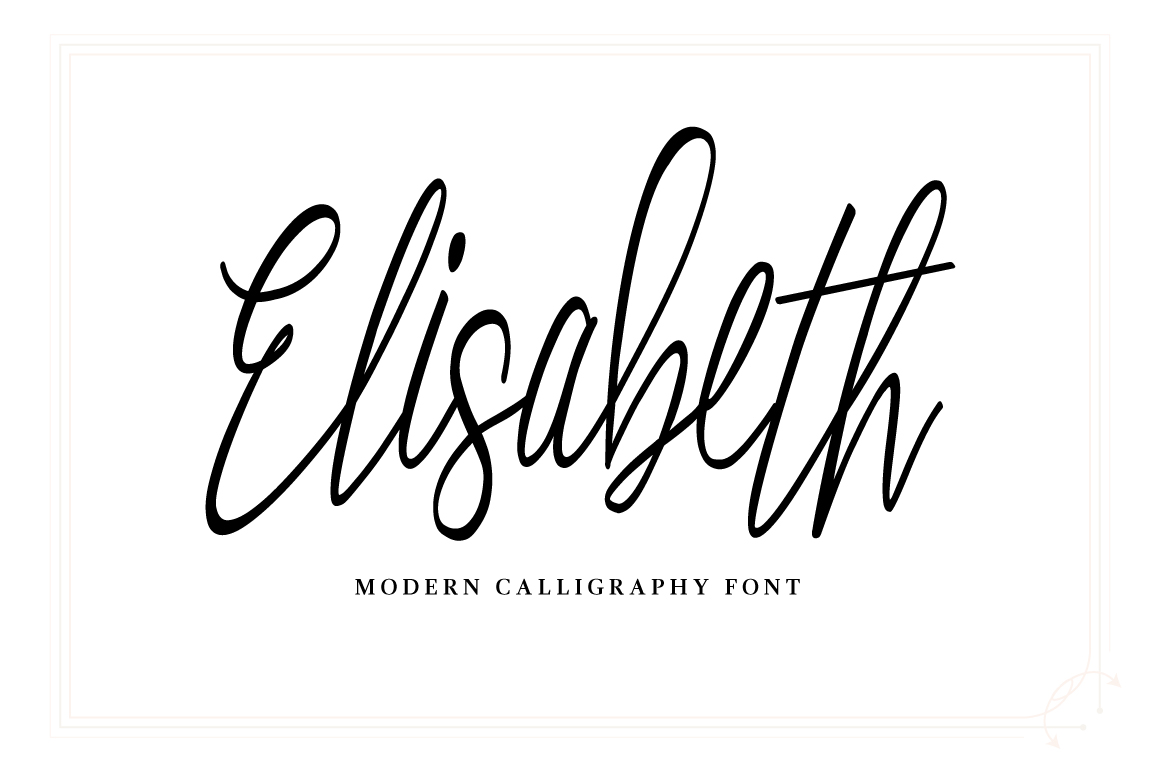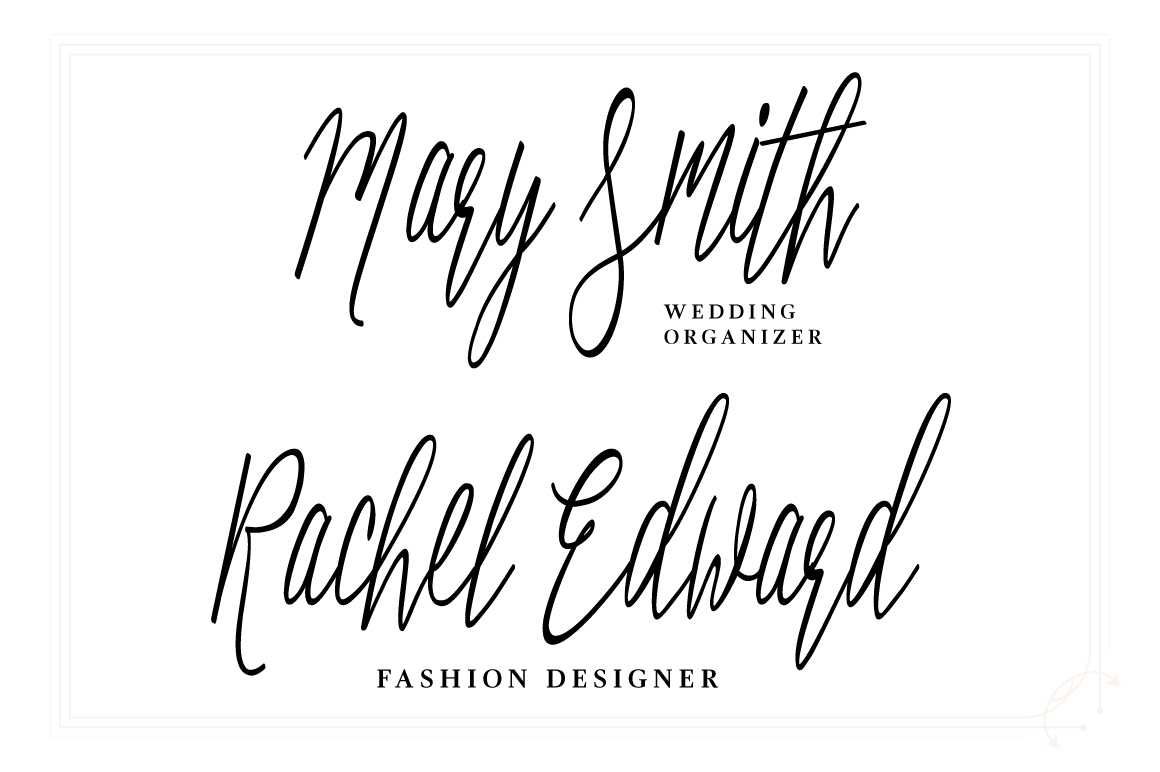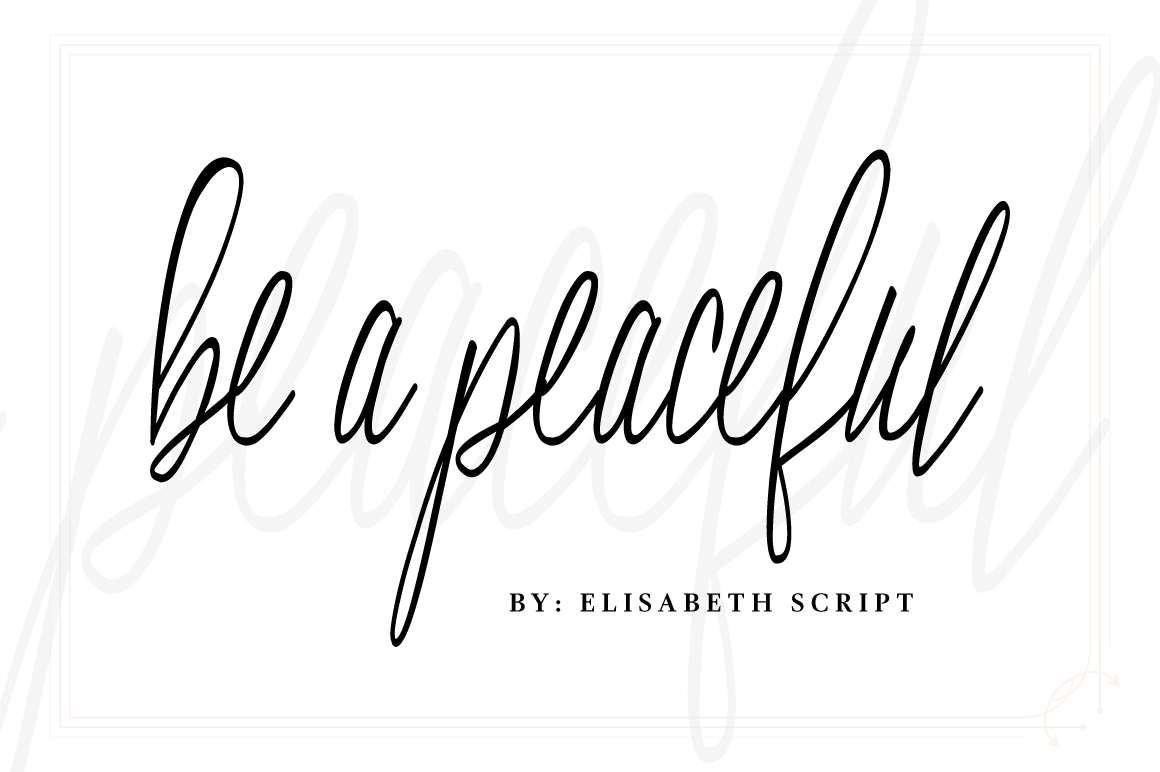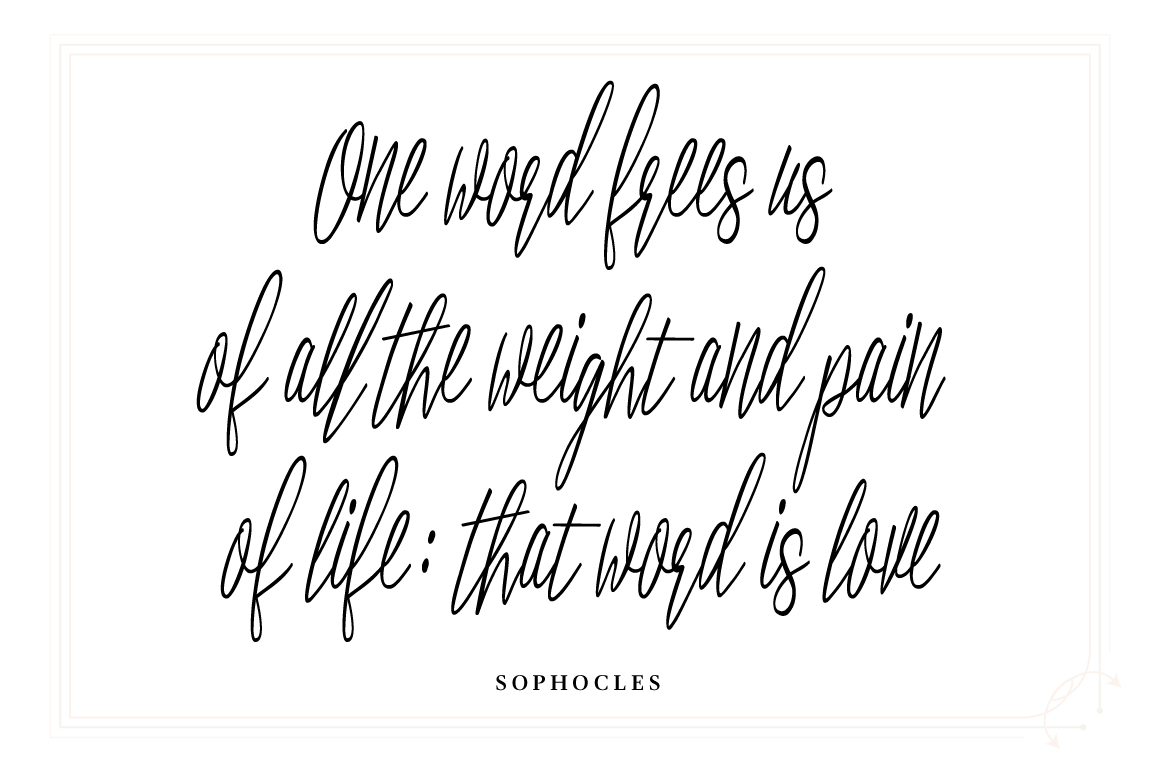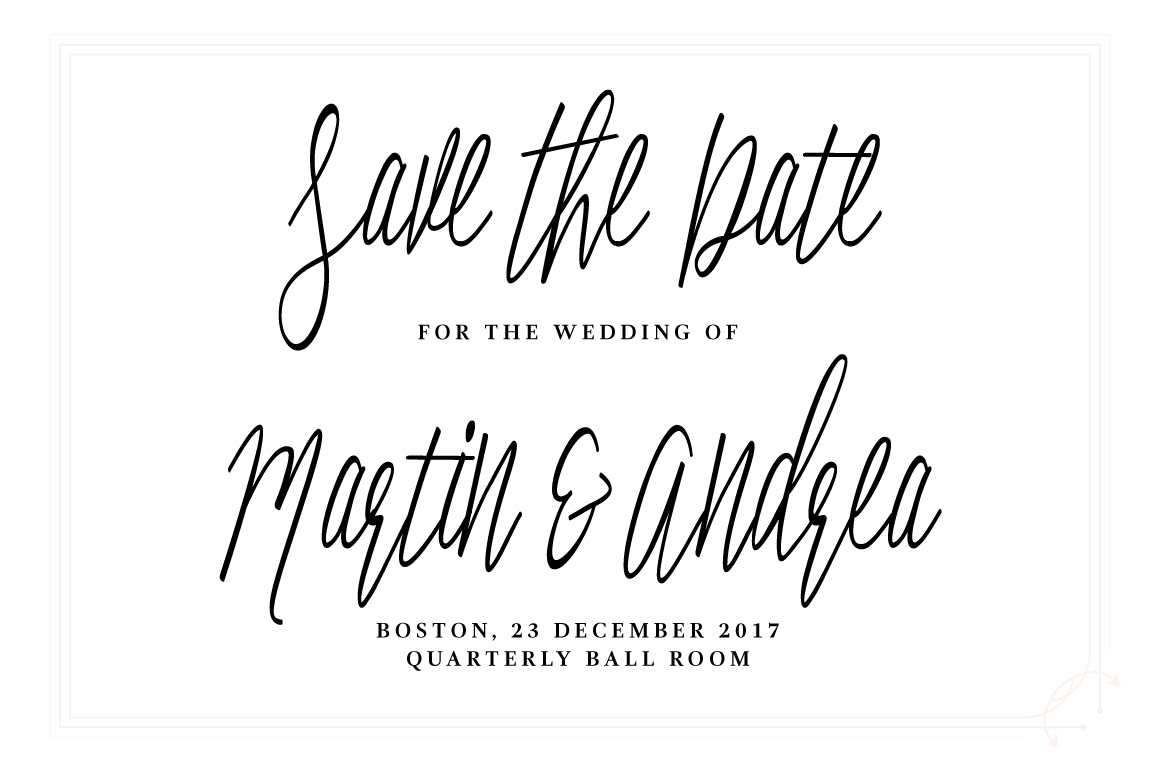
Elisabeth Font
About Elisabeth Font
Elisabeth is an entertaining, fun to use font. It’s bouncy and gives a natural hand-made feel to your text.
It’s dynamic and well-crafted, making it useful for a huge range of projects.